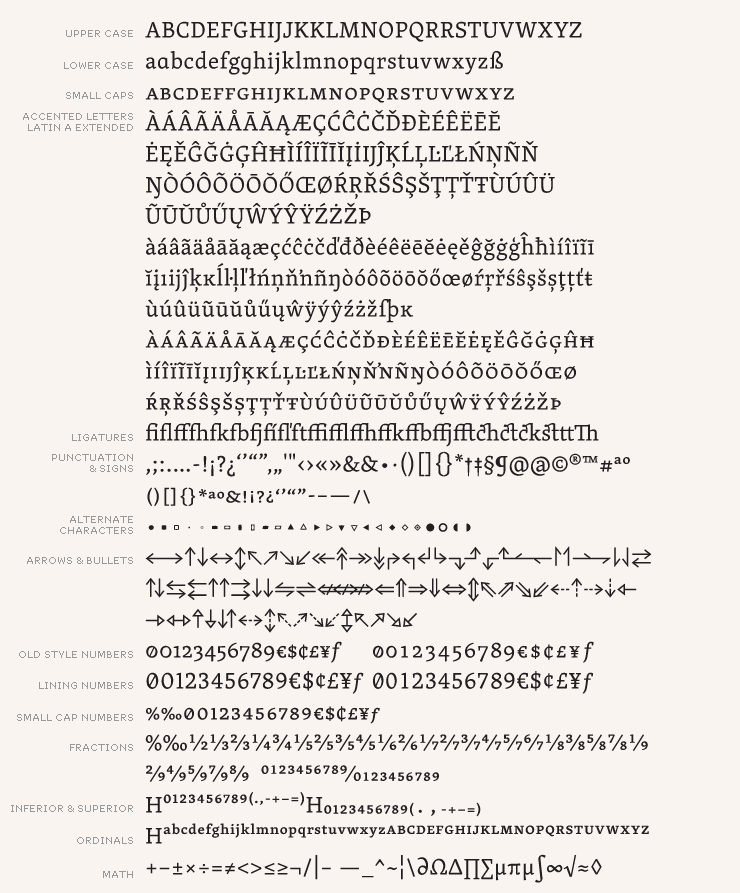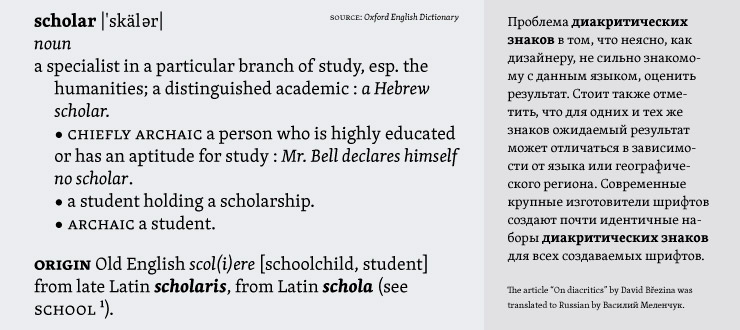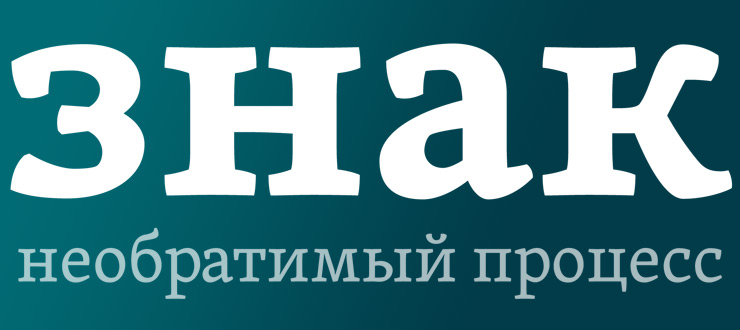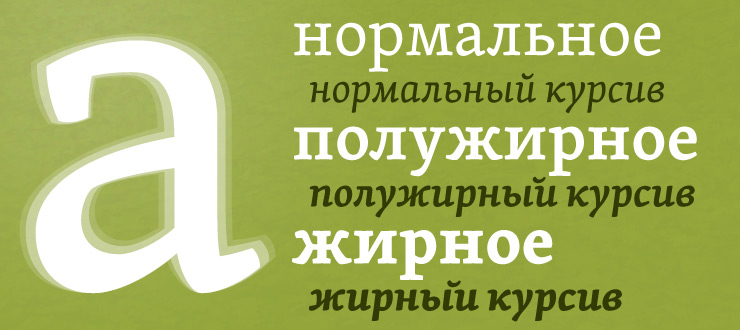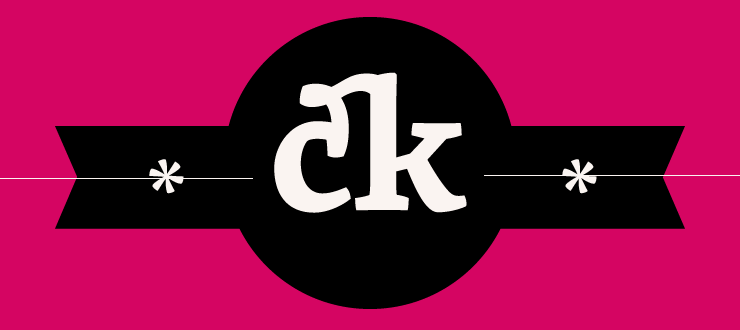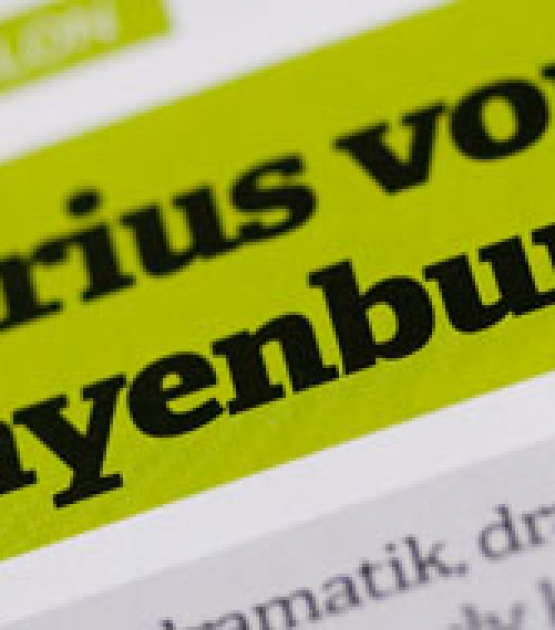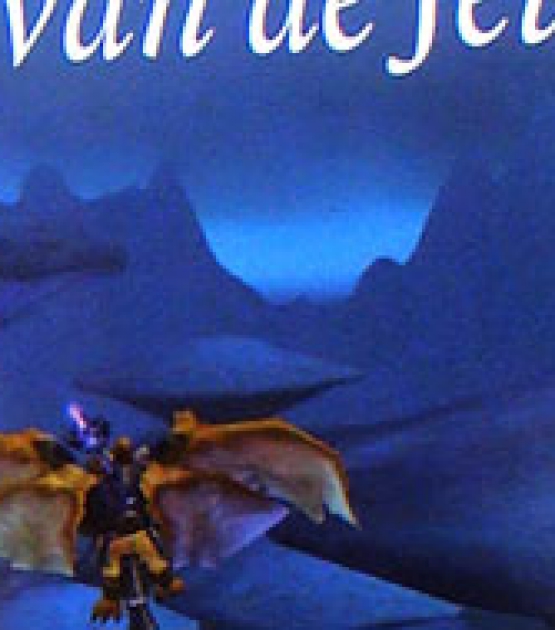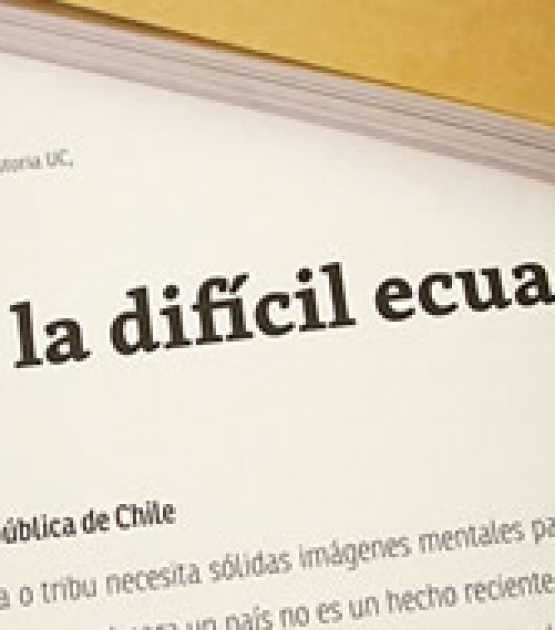
Skolar is a text serif, originally designed with scholarly and multilingual publications in mind. The typeface maintains its credibility while incorporating a subtle personal style, neither neutral nor conspicuous.
Prominent serifs and low-contrast modulation add to its robustness, and, together with a relatively large x-height, improves the typeface’s readability in small sizes. This 6-weight family and large character set is flexible enough for complex text settings and editorial work. It also becomes distinctive in bigger sizes, fitting the demands of corporate design.
There have been many practical solutions introduced in the typeface; the capitals are rather low in comparison to the ascenders. This gives the typeface even texture and more space for capital diacritical marks. The structure of the typeface is strictly conventional, but the stroke-modulation stylistically reflects contemporary serif typefaces. The italic has a shallow angle and large counters for better readability in small print. It is easily recognized but not ostentatious, blending well with the uprights. Semibold is weighted to emphasize text blocks, where Bold is intended for word clusters. The family includes a complex set of smart arrows which can be easily keyed and infinitely combined using OpenType features.